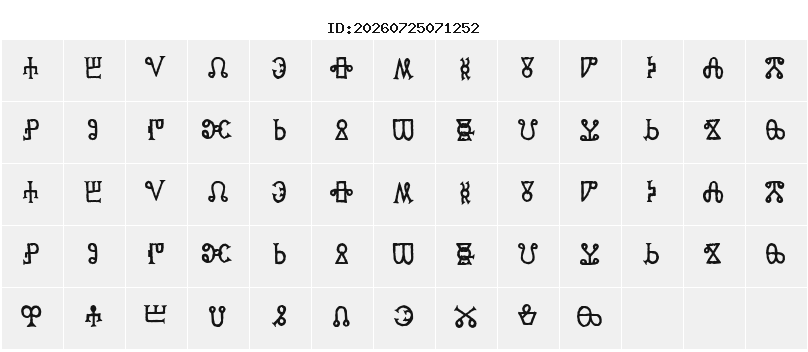
Glagolitic AOE Preview
• Font Name: Glagolitic AOE
• Full Font Name: Glagolitic AOE
About Glagolitic AOE.ttf
Glagolitic AOE.ttf is a modern, elegant sans-serif font designed for ultimate readability and visual harmony. Perfect for branding, headlines, web design, and print materials.